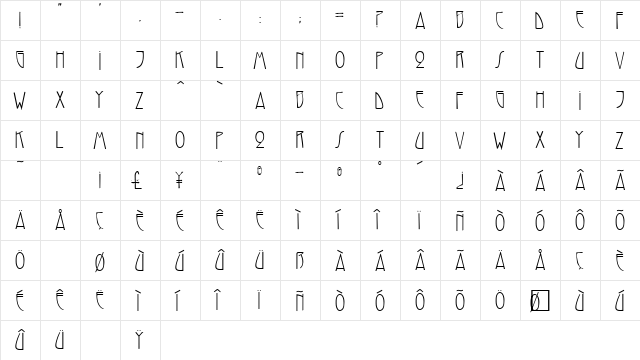
Reynolds Regular
Design Context for Reynolds Typeface
Reynolds is a composed and adaptable typeface that performs quietly and consistently across a wide range of design contexts.